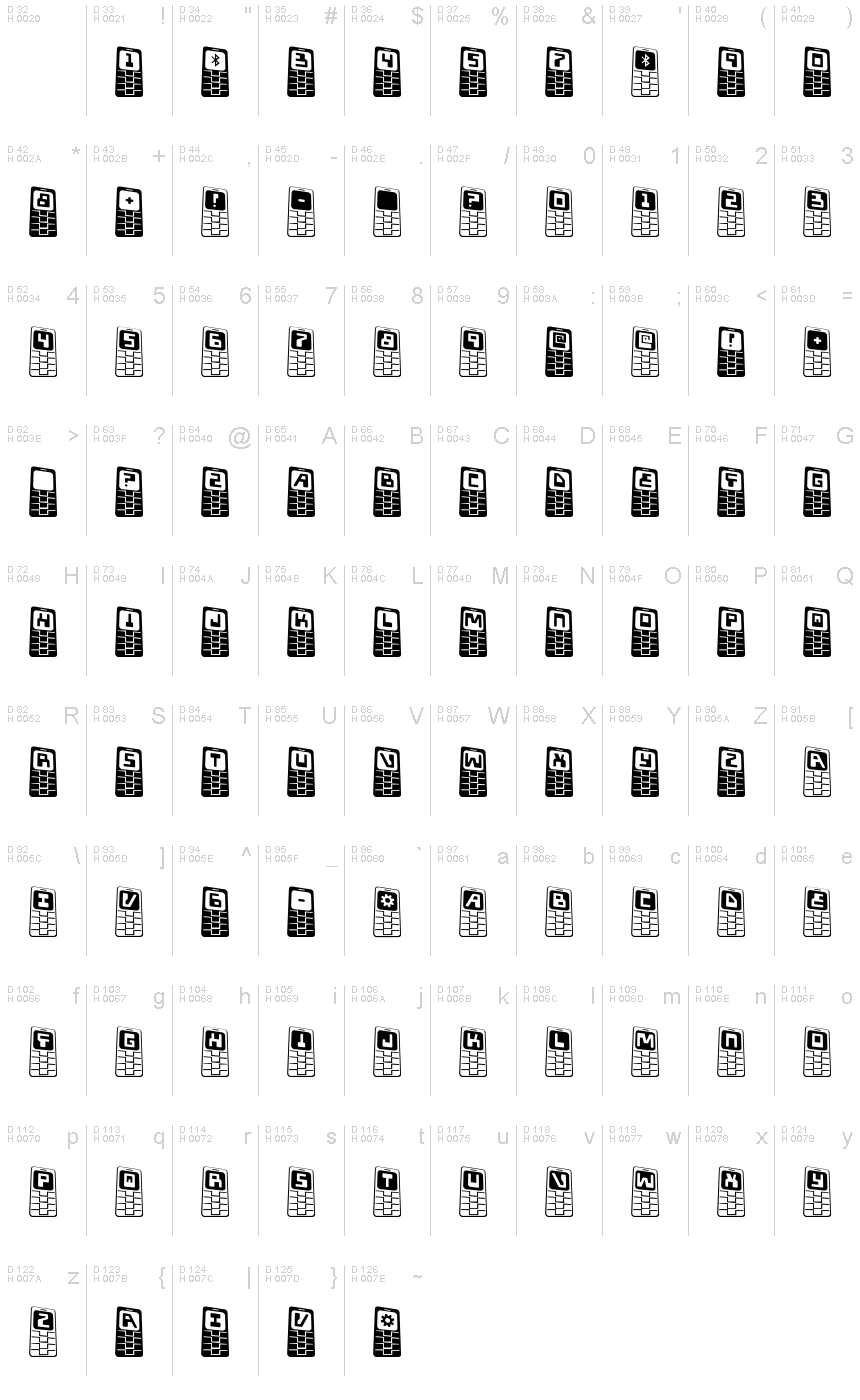
Hola Mota 3D
Hola Mota 3D, a captivating display font crafted by Iconian Fonts, exudes a bold and eye-catching aesthetic. With its distinct three-dimensional appearance, this font commands attention, seamlessly blending modern and retro influences. The sharp, angular letterforms and striking contrasts create a dynamic and energetic visual presence, evoking a sense of excitement and vibrancy.
Hola Mota 3D's versatility shines through, making it a versatile choice for a wide range of design applications. From attention-grabbing headlines and impactful logos to dynamic packaging designs and captivating digital interfaces, this font has the power to elevate any project with its unique and memorable character.